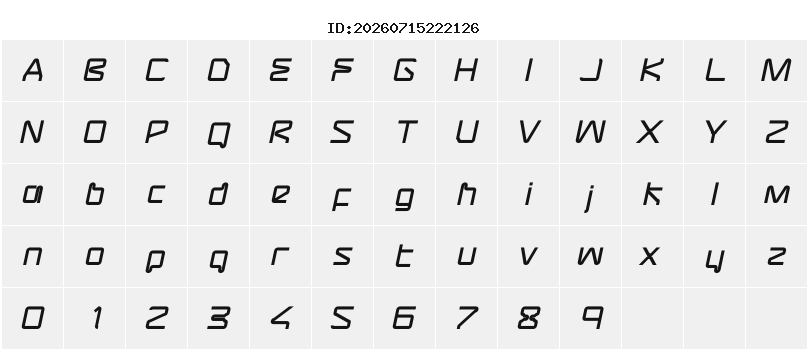
AssemblerBold Oblique Preview
• Font Name: AssemblerBold Oblique
• Font ID: Macromedia Fontographer 4.1.5 AssemblerBold Oblique
• Full Font Name: AssemblerBold Oblique
• Version: Macromedia Fontographer 4.1.5 4/5/04
• PostScript Name: AssemblerBoldOblique
AssemblerBold Oblique.ttf is a modern, elegant sans-serif font designed for ultimate readability and visual harmony. Perfect for branding, headlines, web design, and print materials.